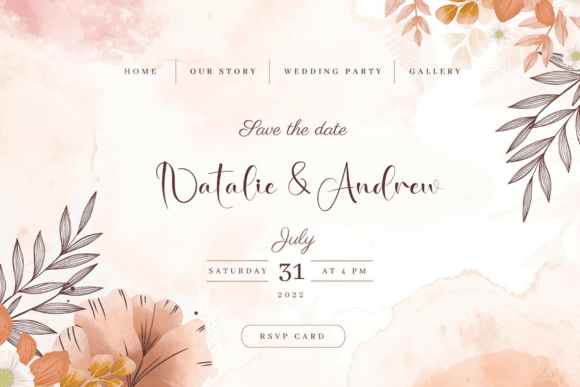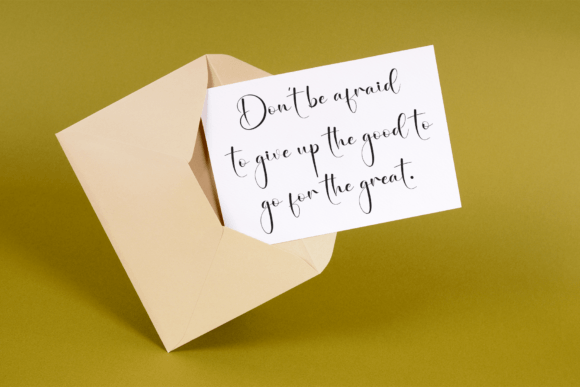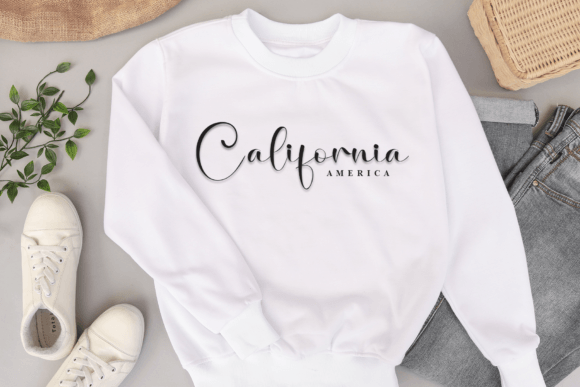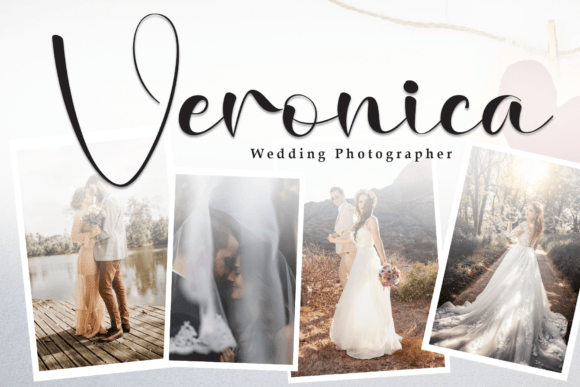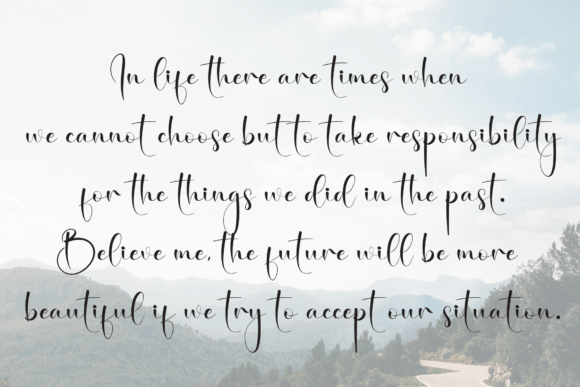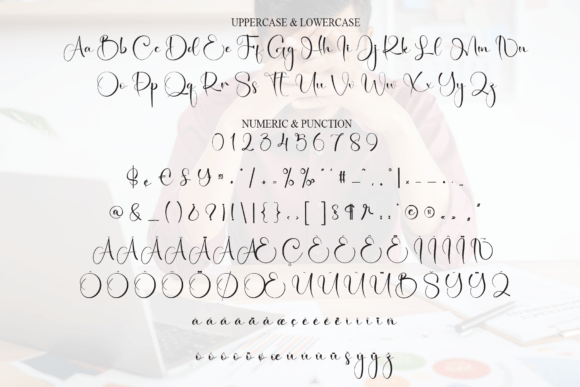
Introduction to Overtimes Font
Have you ever been in the middle of a creative project, struggling to find the perfect font to bring your vision to life? I know I have. The search for that elusive, high-quality font can be a long and arduous one, but sometimes, it all comes down to one simple discovery – a font that speaks to you, and makes your design shine.
For designers, the right font can be a game-changer. It can elevate a design from bland to grand, and make it truly stand out. And that’s exactly what the Overtimes Font does. With its unique blend of bold and thin lines, this stylish handwritten font is perfect for personal projects, invitations, and creative displays that demand a touch of elegance and sophistication.
- High-quality font designed for creative projects, ideal for digital and print media.
- Includes 6 different font styles, each with its own unique characteristics and nuances.
- Supports a wide range of languages, including Latin, Cyrillic, and Greek alphabets.
Honest Review: Overtimes Font
I recently had the chance to work with the Overtimes Font, and I must say it’s been a game-changer for my creative projects. The high quality of this font has elevated my designs to a whole new level.
- Unique aesthetic: The Overtimes Font has a distinctive look that sets it apart from other fonts in its category.
- Limited character set: The font’s character set is somewhat limited, which can make it difficult to use for longer blocks of text.
- No bold or italic options: While the font’s unique aesthetic is a major selling point, the lack of bold and italic options can be limiting in certain situations.
Overall, I’m really impressed with the Overtimes Font and would highly recommend it to anyone looking for a high-quality, unique font for their creative project. With a little creativity, the limitations of this font can be overcome, making it a valuable addition to any designer’s toolkit.
Getting the Most Out of Overtimes Font
To get the most out of the Overtimes Font, experiment with different font sizes, colors, and styles. Use it in combination with other design elements, such as images and graphics, to create a visually appealing design. Consider using the font in a variety of contexts, such as on a website, in a social media post, or on a business card.
The Overtimes Font is a versatile design resource that can be used in a variety of applications, including:
– Flyers and brochures
– Logos and business cards
– Presentations and documents